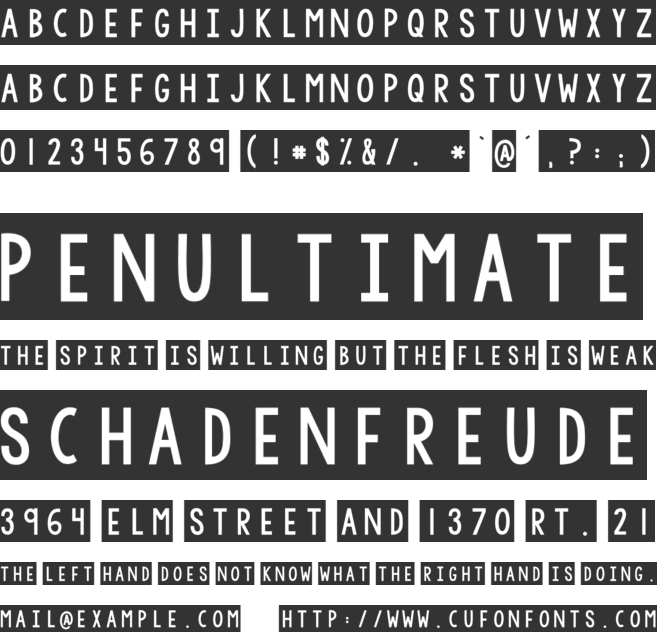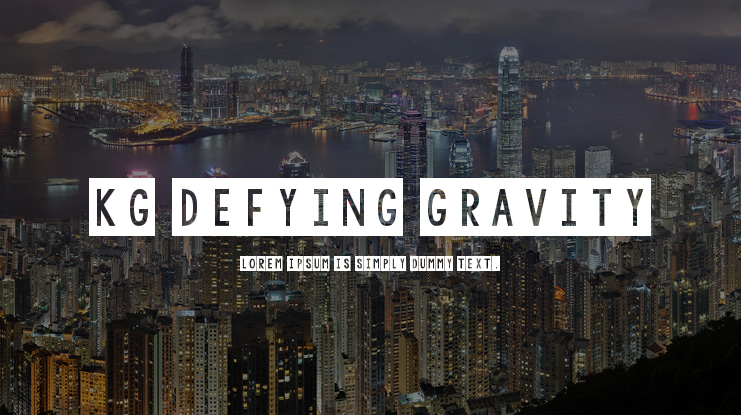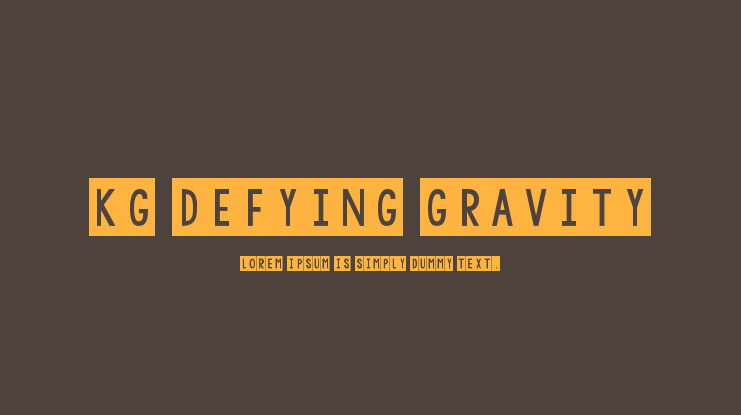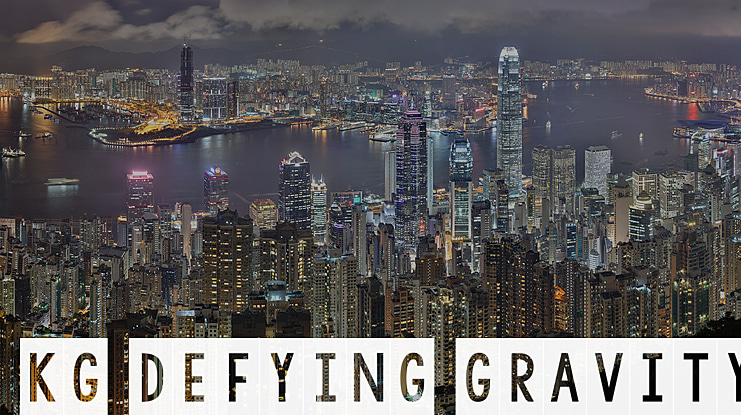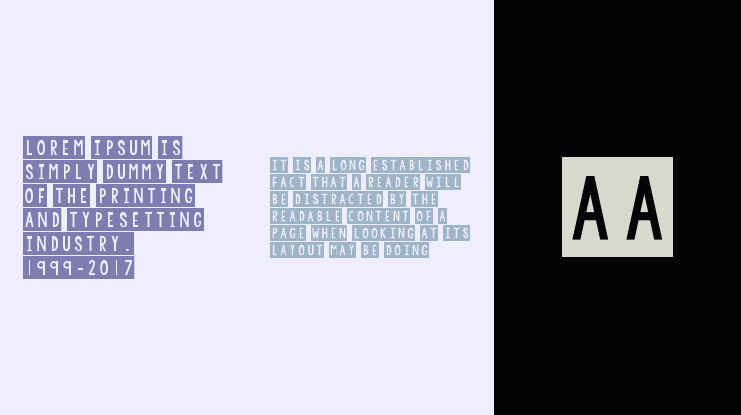
KG Defying Gravity Font Family
Kimberly Geswein
Use the [ and ] key to create a unique flag ending on your words. Use alternating lowercase and uppercase with the Bounce version to create a bouncy look.
To create a solid space instead of an empty space, use the bar key | which shares a key with the \ backslash on my keyboard. Your keyboard may vary.